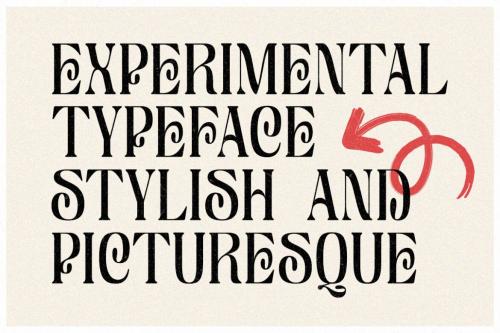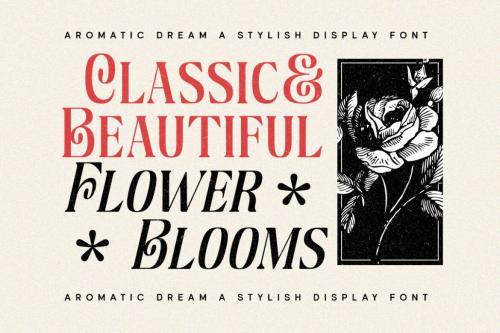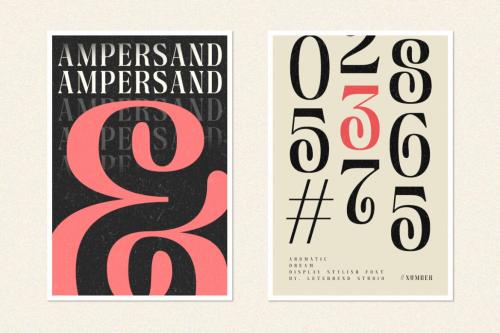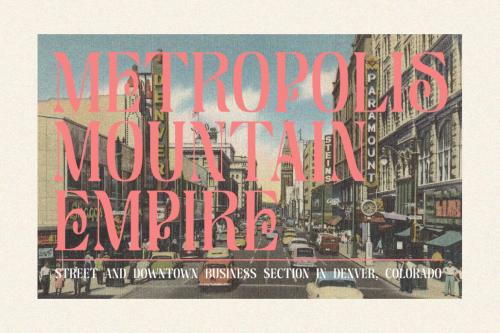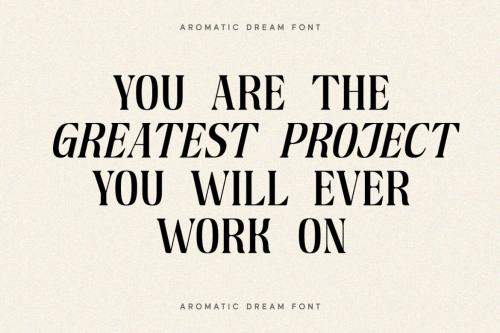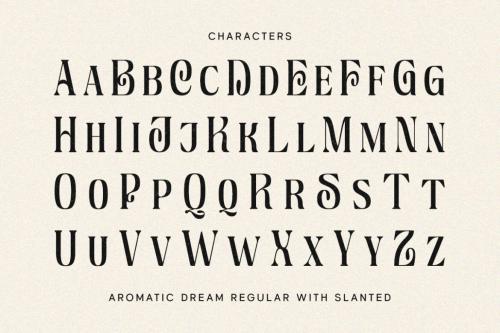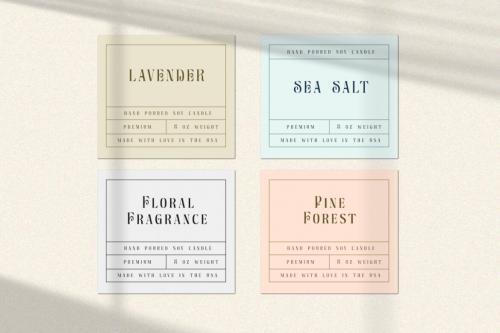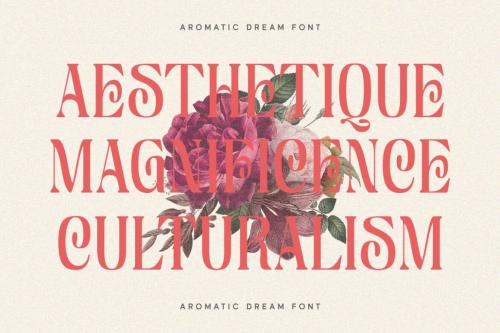
Deeezy - Aromatic Dream - Stylish Display Font
Introducing, Aromatic Dream- Astylish font with chic & classic looks. This typeface has been made carefully to make sure its premium quality and luxury feel. Very suitable for logo, headline, tittle, and the other various formal forms such as invitations, labels, logos, magazines, books, greeting u002F wedding cards, packaging, fashion, make up, stationery, novels, labels or any type of advertising purpose.